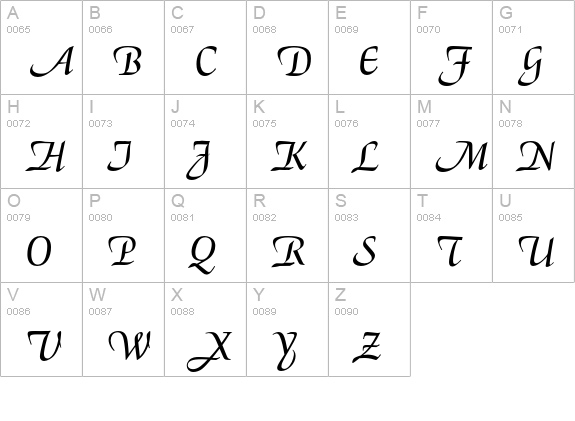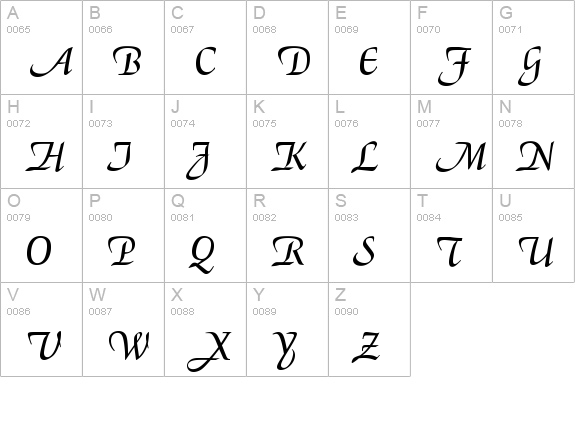
El Greco Font Details
El Greco font is a stunning and elegant typeface that exudes classical sophistication and artistic flair. With its graceful curves and intricate details, this font is perfect for adding a touch of refinement to any design project. Whether you're creating invitations, logos, or branding materials, El Greco font will surely make a lasting impression. What's even better is that El Greco font is available for free download at FontsMarket.com. So, you can easily elevate your designs without breaking the bank. Don't miss out on the opportunity to add this timeless font to your collection and start creating beautiful and captivating designs today.